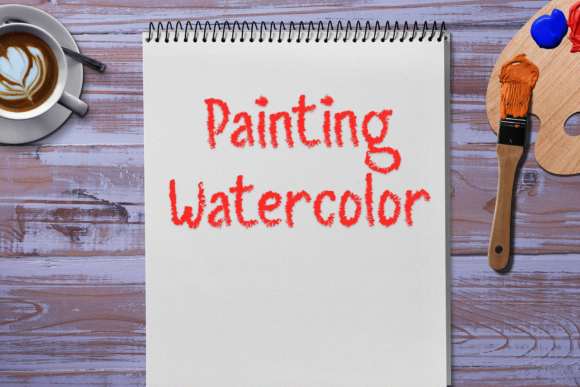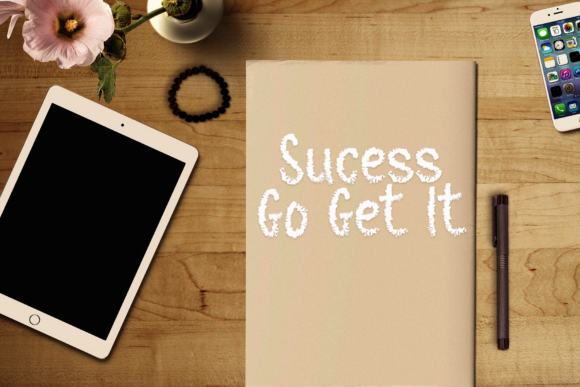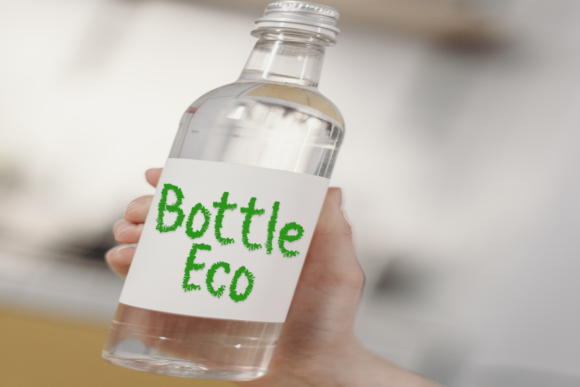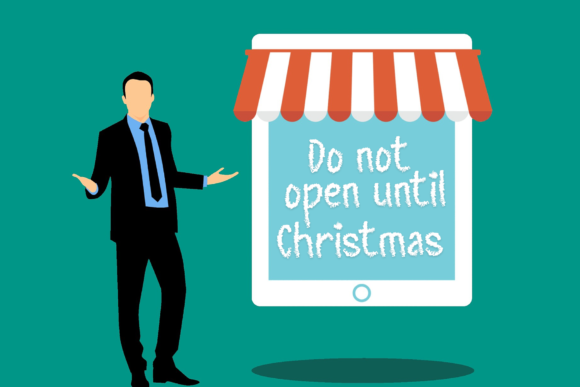
Introduction to Savannah Farmhouse Font Font
Fonts play a crucial role in design, and the Savannah Farmhouse Font font is a typeface that brings both character and versatility to any project. Whether you’re working on a branding project, a website, or a print design, the Savannah Farmhouse Font font offers a unique style that can elevate your work.
Savannah Farmhouse is a unique display font.
It looks outstanding on a variety of informal designs Add it confidently and you will love the result.
Key Features of Savannah Farmhouse Font Font
Why Choose Savannah Farmhouse Font Font?
The Savannah Farmhouse Font font is more than just a typeface – it’s a design tool that helps you communicate your message with style and clarity. Its unique character set and versatile design make it suitable for a wide range of applications, from elegant invitations to bold headlines.
With its carefully crafted letterforms and balanced proportions, the Savannah Farmhouse Font font ensures readability and visual appeal across all mediums.
What makes Savannah Farmhouse Font font special?
The Savannah Farmhouse Font font stands out with its unique design, exceptional readability, and versatility across various design applications.